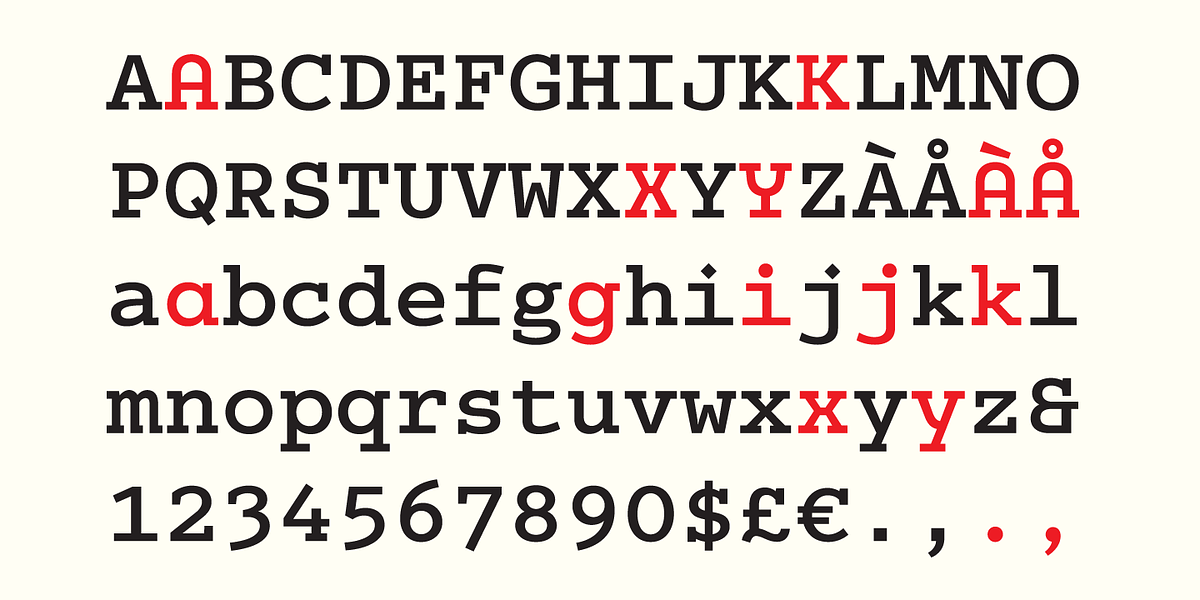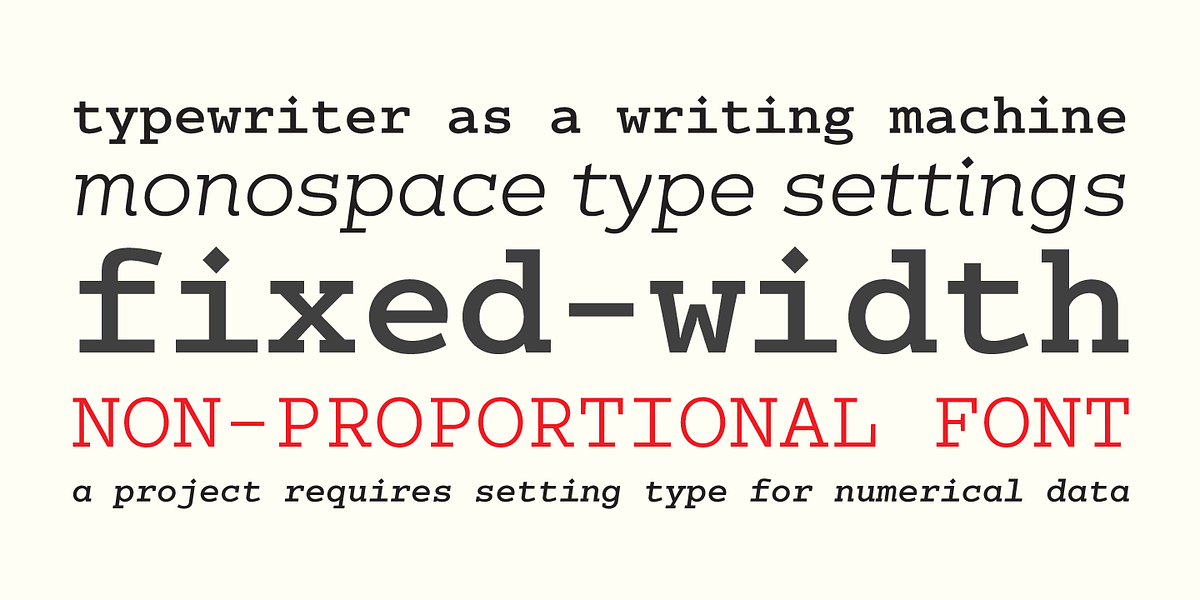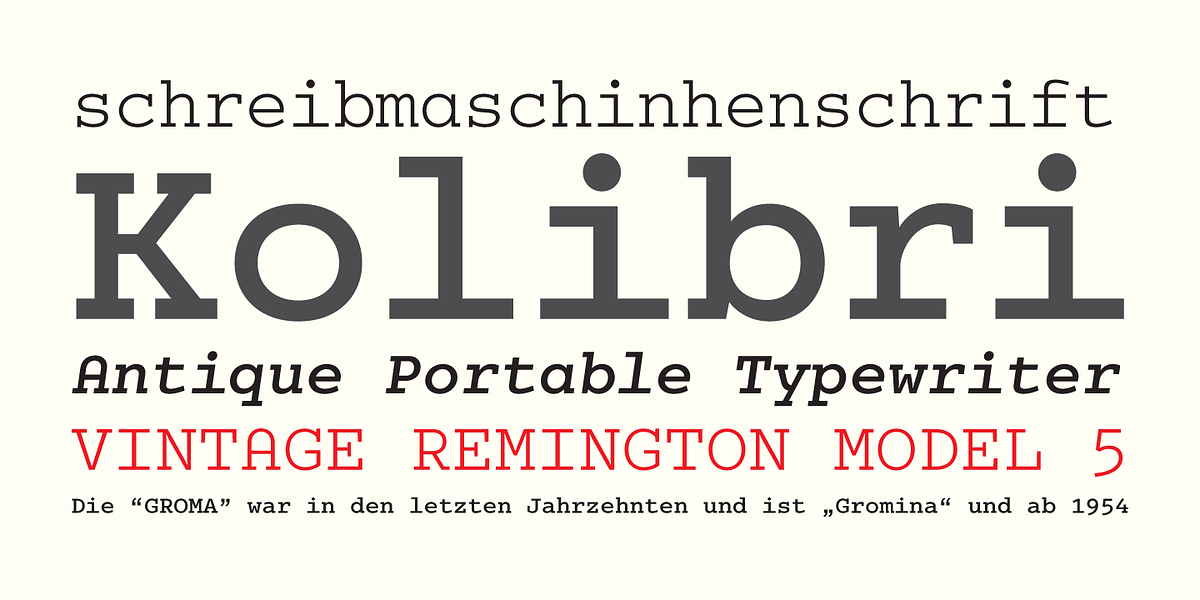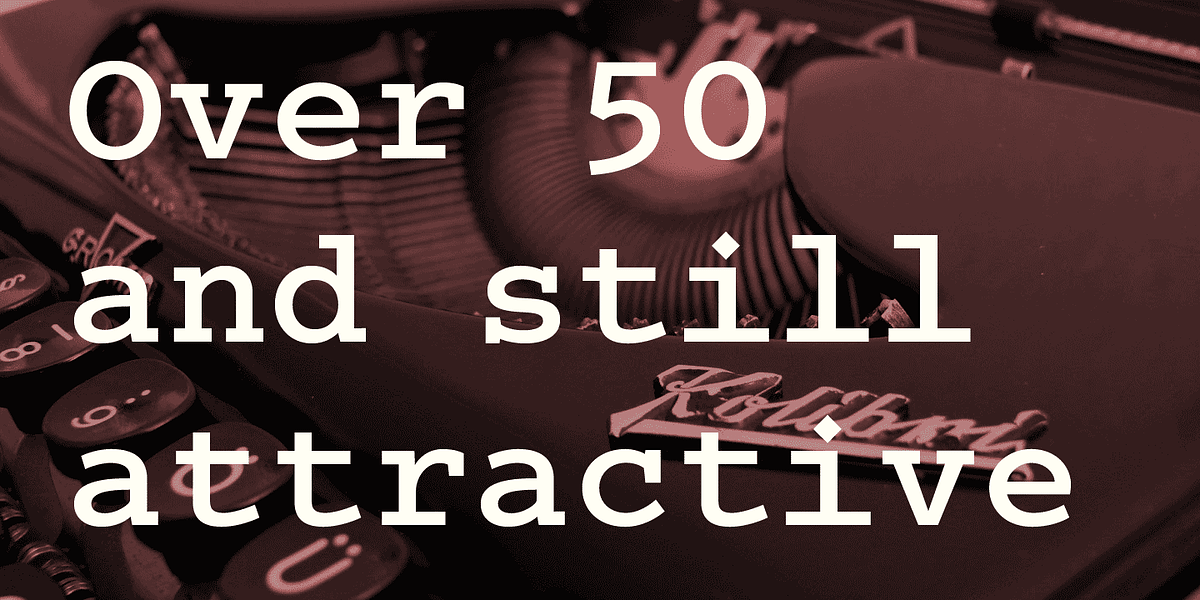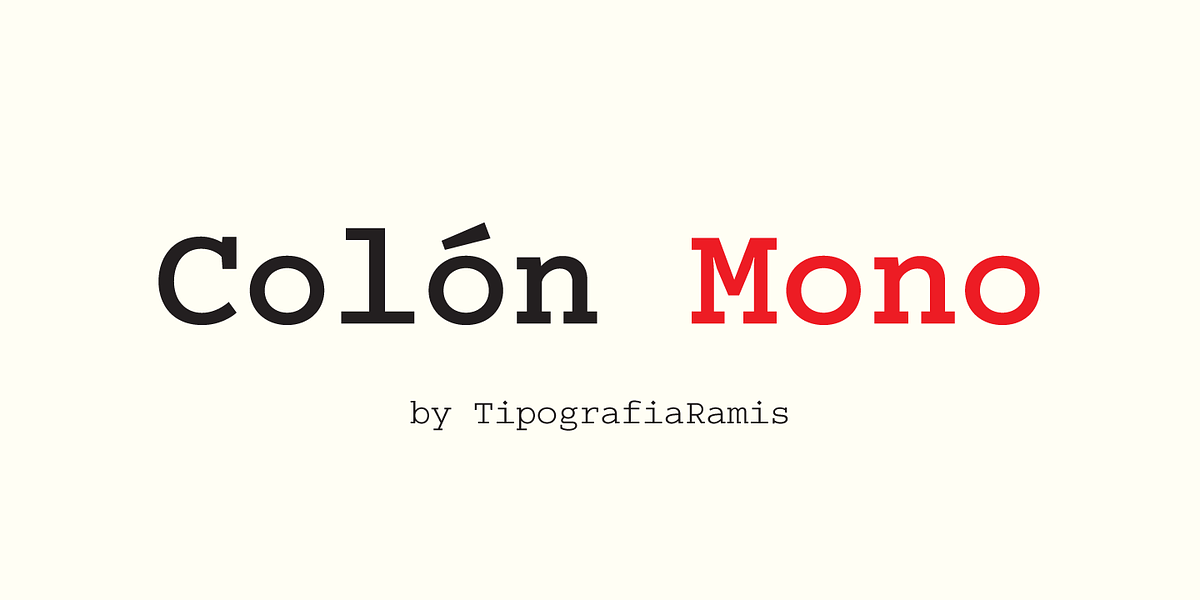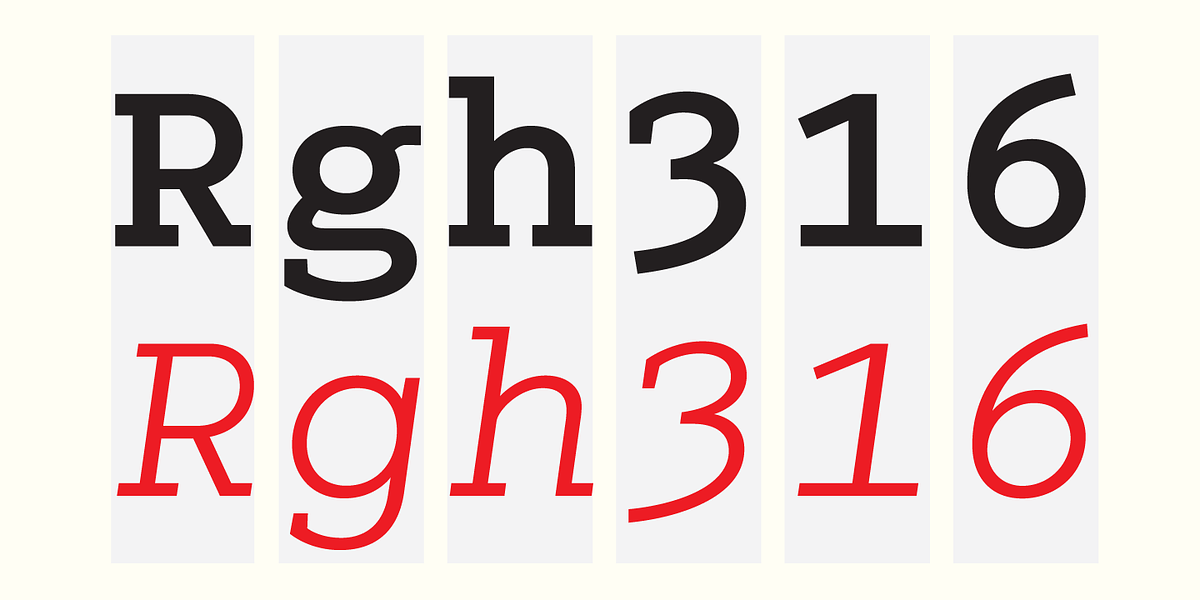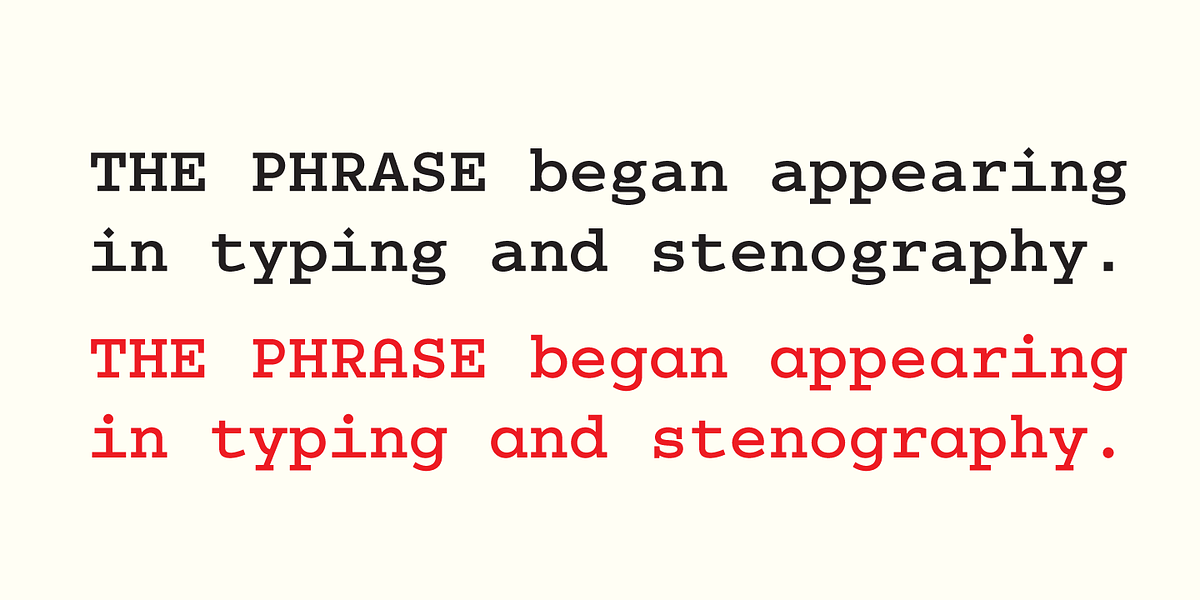
Colón Mono
Colón Mono is a monospaced typeface inspired by the classic aesthetic of typewriters. It comes in eight styles, including two weights (regular and bold) with roman and alternative styles, as well as matching italics. The font supports most Latin languages and includes some OpenType features.